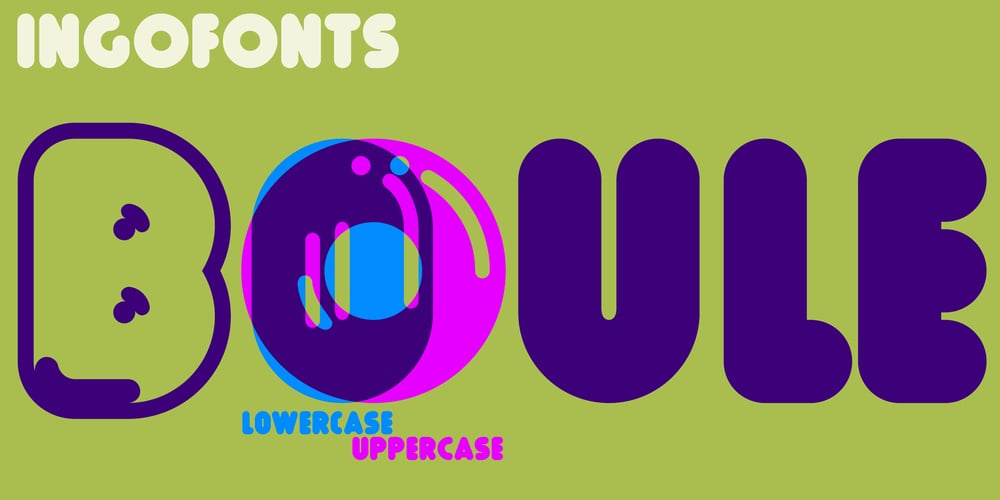
Boule Plus
Boule Plus font
Boule Plus Font Family was designed by Ingo Zimmermann and published by Ingo. Boule Plus contains 3 styles and family package options. CAPITALIZED, geometric, bold and round.If the typo­grapher sees a font like that, it’s enough to make his toes curl. But sometimes it just has to be that way.Geometrically constructed fonts do not necessarily have to be pointed and angular; It also works consistently around. And if I say it consistently, then in this case, that’s done consistently.The basis for the BOULE is the circle. The letters are drawn with constant line width, the “corners“ and endings all have the same radius, the lines are all the same thickness.The BOULE consists only of capitals. There is only one difference in the use of uppercase and lowercase letters: in the uppercase letters, the round letters are circular, while the lowercase letters are narrow.The character set of the Boule contains all letters and accents to support the Western, Northern, Central and Eastern European languages with Latin alphabet.The BOULE is not only very fat, it also runs very tight; that is, the glyphs are very close to each other. To avoid “holes” due to unfortunate letter combinations, the BOULE contains ligatures for FT, ST, TT and TZ.There are also other versions of the font: BOULE Brillant on the one hand. In this version, simple highlights simulate a light incidence from the top right. These light edges give the font a decorative effect that makes it easy to think of wet sausages or balloons in some shapes.And finally the BOULE Contour. As the name implies, it is the outer contour of the letters, combined with a shadow at the bottom left.The name BOULE (French for ball) says it already: this font is globated. Therefore, it is also very suitable for all three-dimensional alienation effects. With simple light and shadow you can achieve a very convincing 3D effect with little effort.